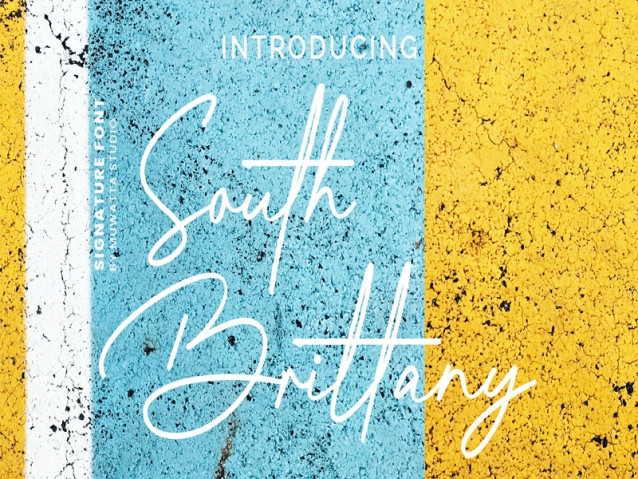
South Brittany Font
South Brittany Font is a stylish, sophisticated signature style with unique curves and elegant ink flow. Perfect for branding projects, logos, wedding designs, social media posts, advertising, product packaging, product design, labels, photography, watermarks, invitations, stationery and any project that requires a handwritten touch.